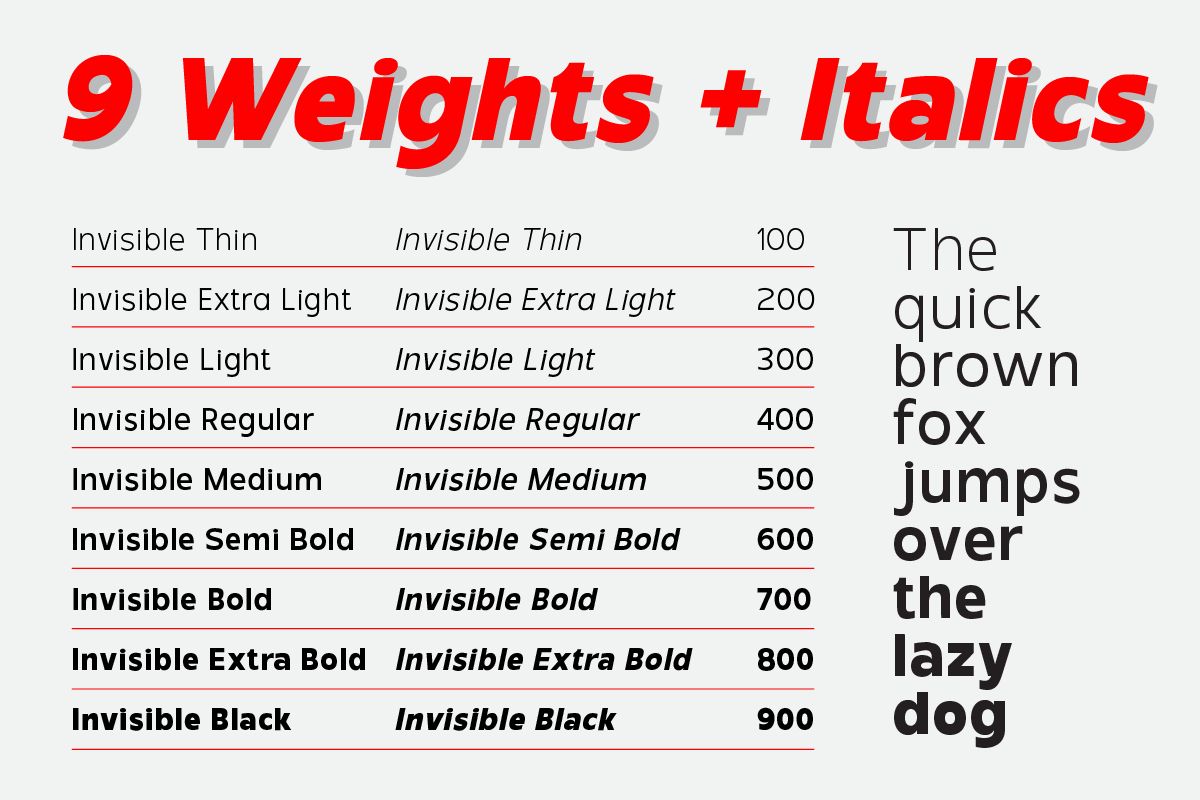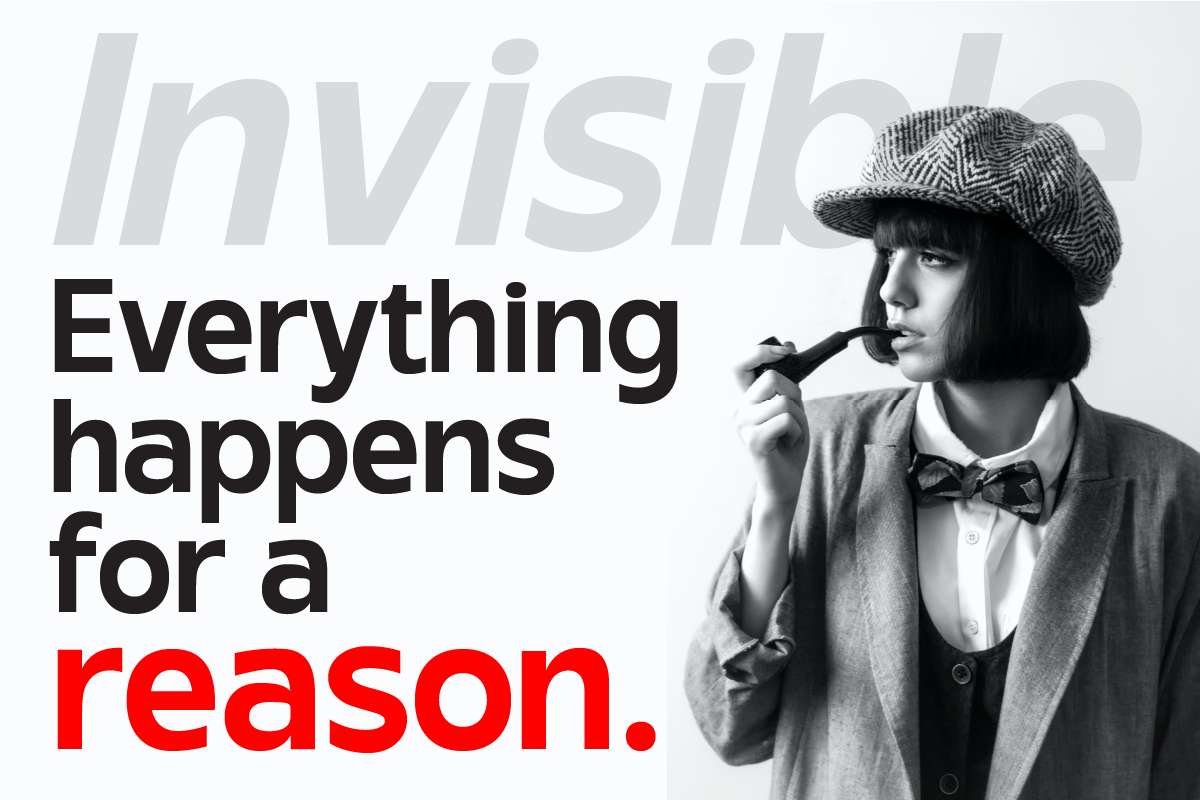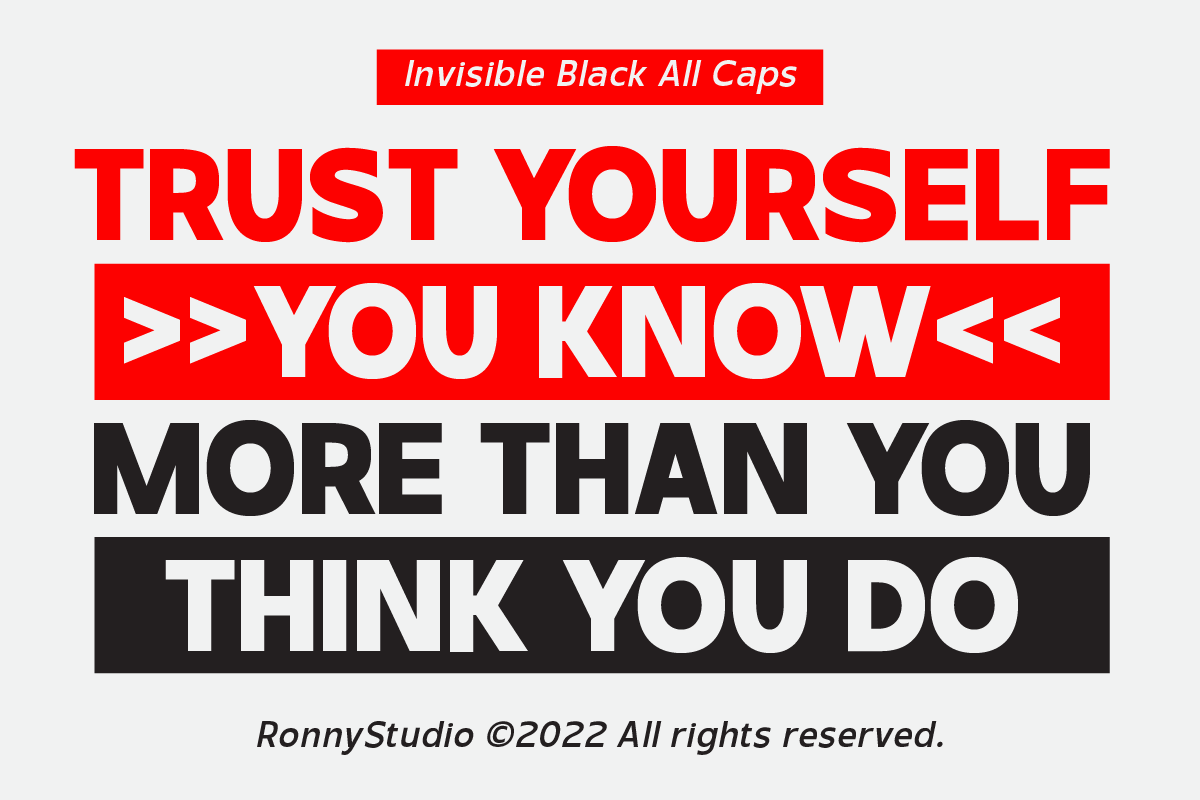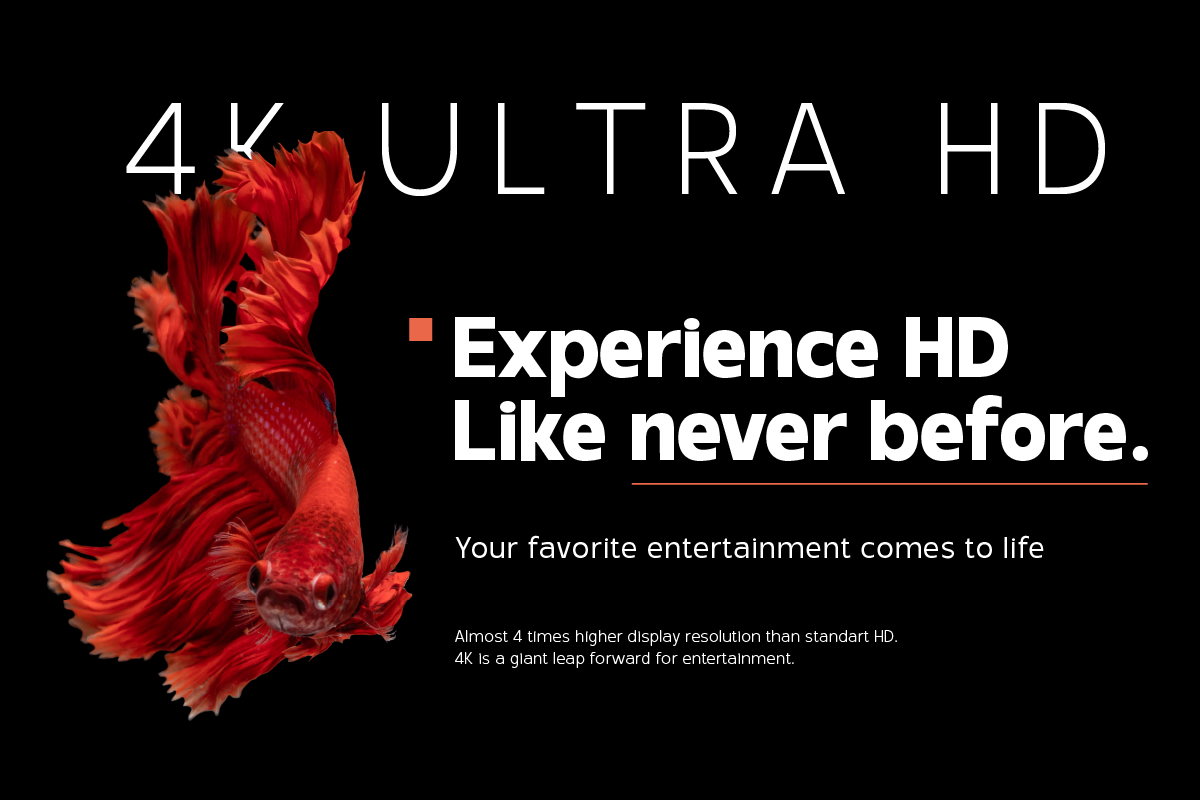
Invisible Font
Invisible Sans Serif Font
This is a geometric sans serif font family. Contains 9 weights with Regular and Family Look from Thin to Black and matching Slanted style. Invisible Normal character shapes have optimized proportions and improved balance perfect for use for text and heavyweights have strong characters have a unique style with smooth shapes to work with any look. Invisible fonts can be enhanced and used for any display medium to support your visual designs.